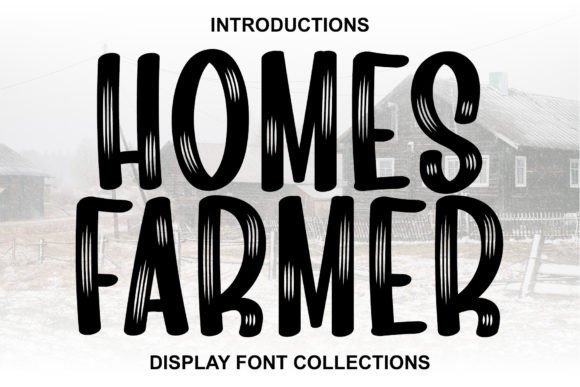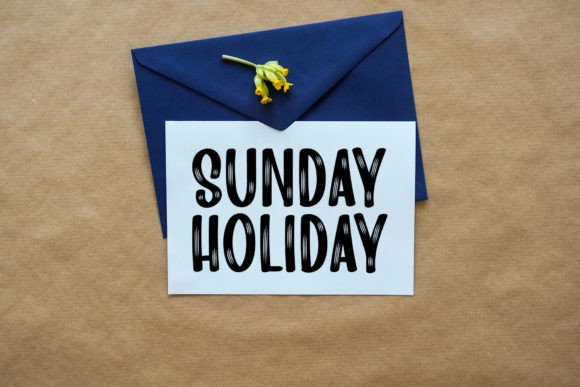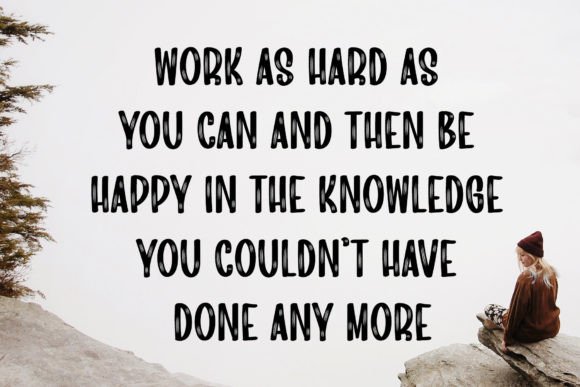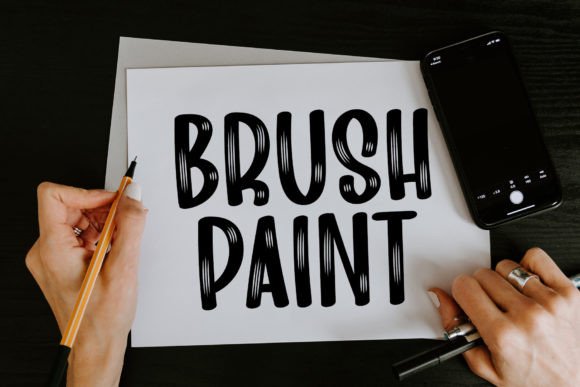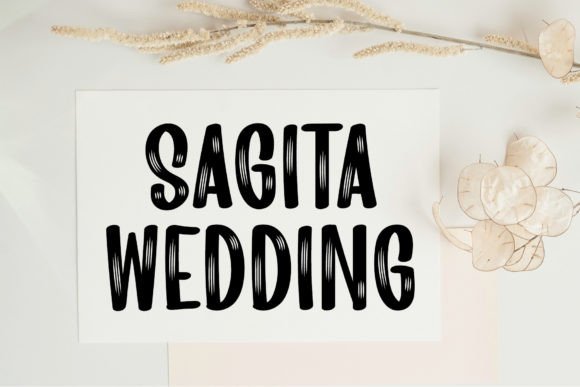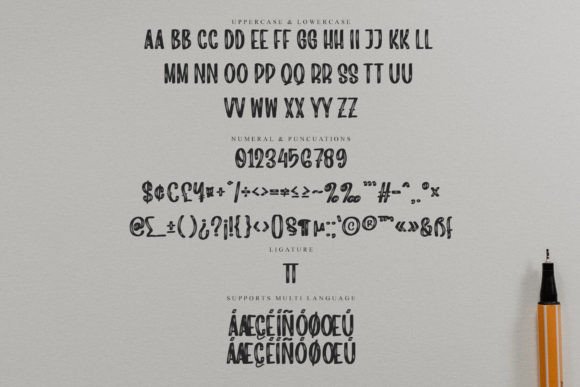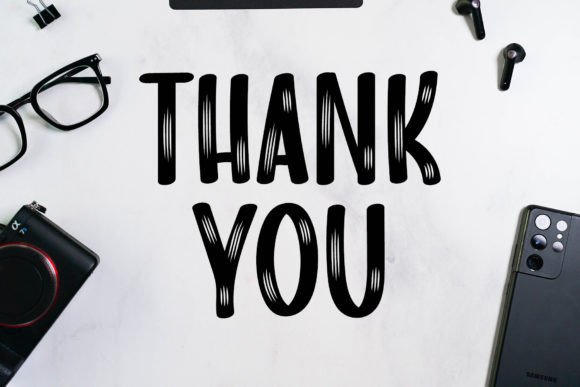
Discover the Warmth of Homes Farmer Font
Have you ever found yourself lost in a world of endless design possibilities, only to stumble upon that perfect font that makes everything click into place? It’s a moment every designer can relate to – the instant you know you’ve found the one that will elevate your project to new heights. For us, that moment came with the introduction of Homes Farmer Font, an adorably warm and welcoming display font that breathes life into any creative exploration.
With Homes Farmer Font, you’ll be able to infuse your designs with a unique charm that’s sure to captivate and delight. Whether you’re working on a personal project or a client’s vision, this distinctive typeface will help you deliver results that truly stand out. As a designer, you’ll appreciate the value Homes Farmer Font brings to the table – a touch of warmth and personality that’s hard to find in more generic fonts.
Homes Farmer Font Key Features
- Unique Characteristics: Custom-designed for homes and farms, featuring a rustic and vintage feel with a modern twist
- Font Style: Script, Regular, and Bold styles available
Homes Farmer Font Review
Homes Farmer Font is a delightful font that has captured my attention. I love its ✨ rustic charm, which makes it perfect for designs that require a homespun or countryside feel. The font is highly versatile and can be used in a variety of contexts, from farm-themed logos to rustic invitations.
Here are some features that I particularly appreciate:
- ✨ Wide range of font styles, including regular, bold, and italic options, which allows for a lot of creative flexibility.
- ✨ High-quality vector files, which ensures that the font looks crisp and clear on high-resolution displays.
- ✨ Easy-to-read font characters, making it perfect for body text or headings.
- ⚠️ Limited language support, which may make it less suitable for multilingual designs.
- ⚠️ Some users may find the font too rustic or distressed, which may not be suitable for all designs.
Overall, I think Homes Farmer Font is a great choice for designers who want to add a touch of rustic charm to their designs. While it may have some limitations, its versatility and high-quality vector files make it a valuable addition to any design toolkit.
Tips for Getting the Most Out of the Homes Farmer Font
To get the most out of the Homes Farmer Font, use it in combination with other design elements that complement its rustic and vintage feel. Consider pairing it with earthy colors and natural textures to create a cohesive look.
The Homes Farmer Font is perfect for creating a rustic or vintage-inspired design, such as:
- Farm-themed marketing materials
- Rustic wedding invitations
- Vintage-style posters
- Home decor and furniture designs
Alternatives to Homes Farmer Font